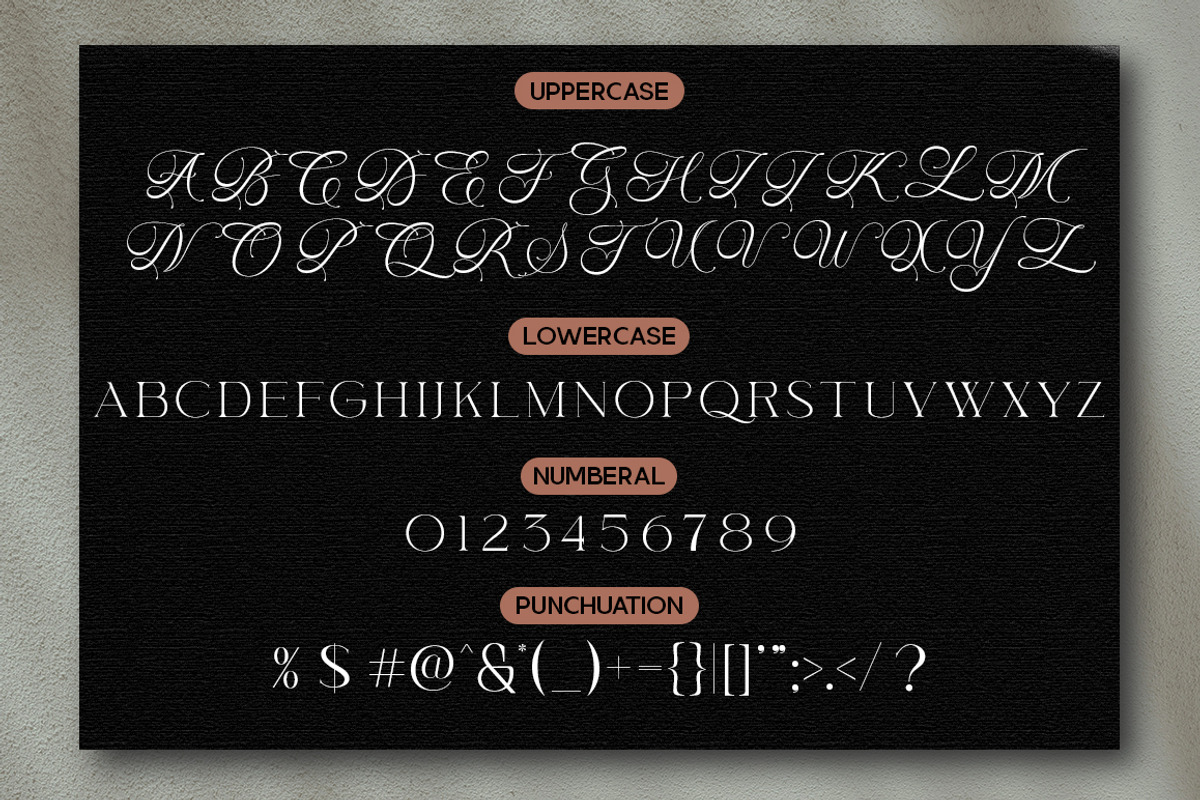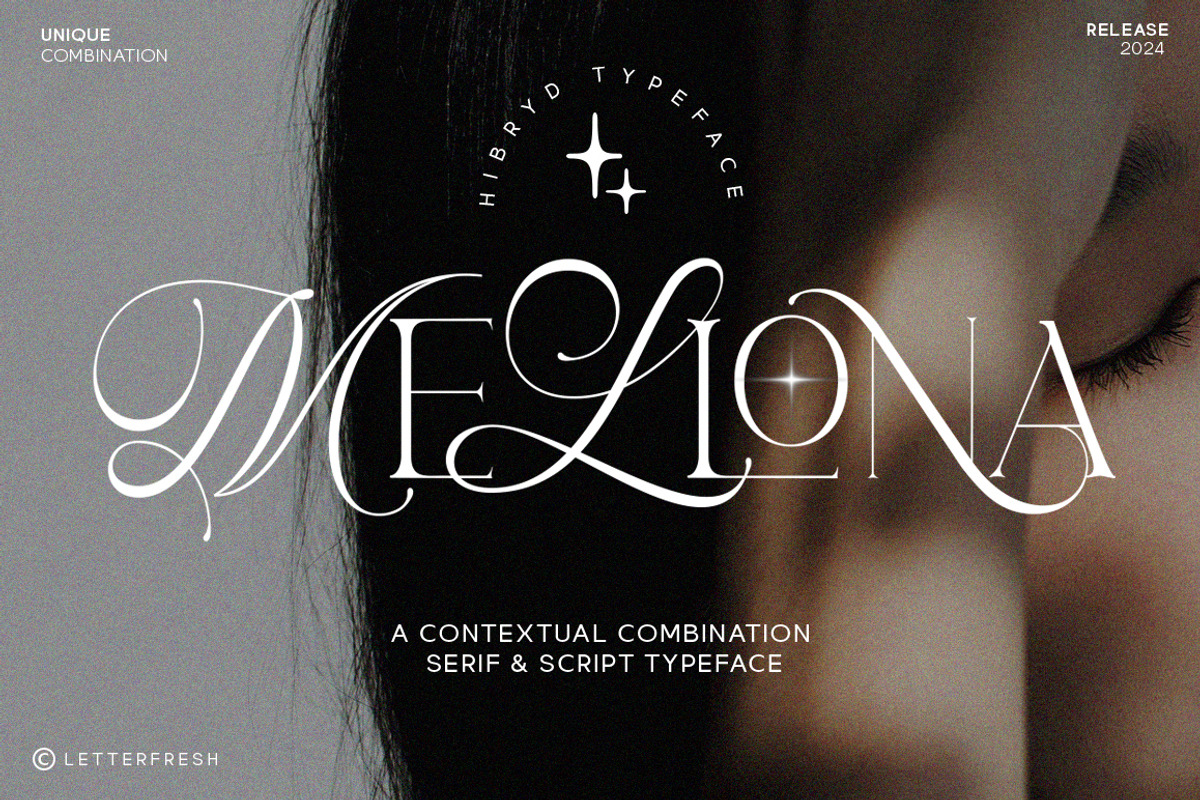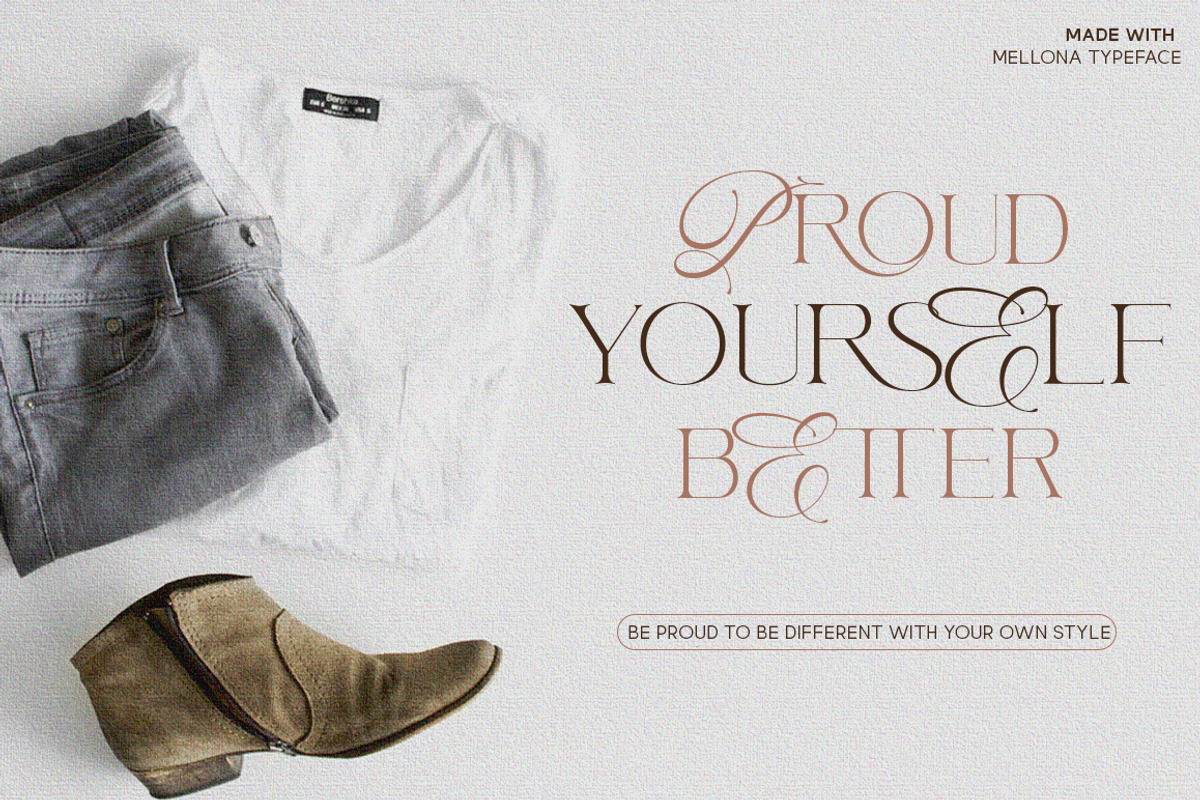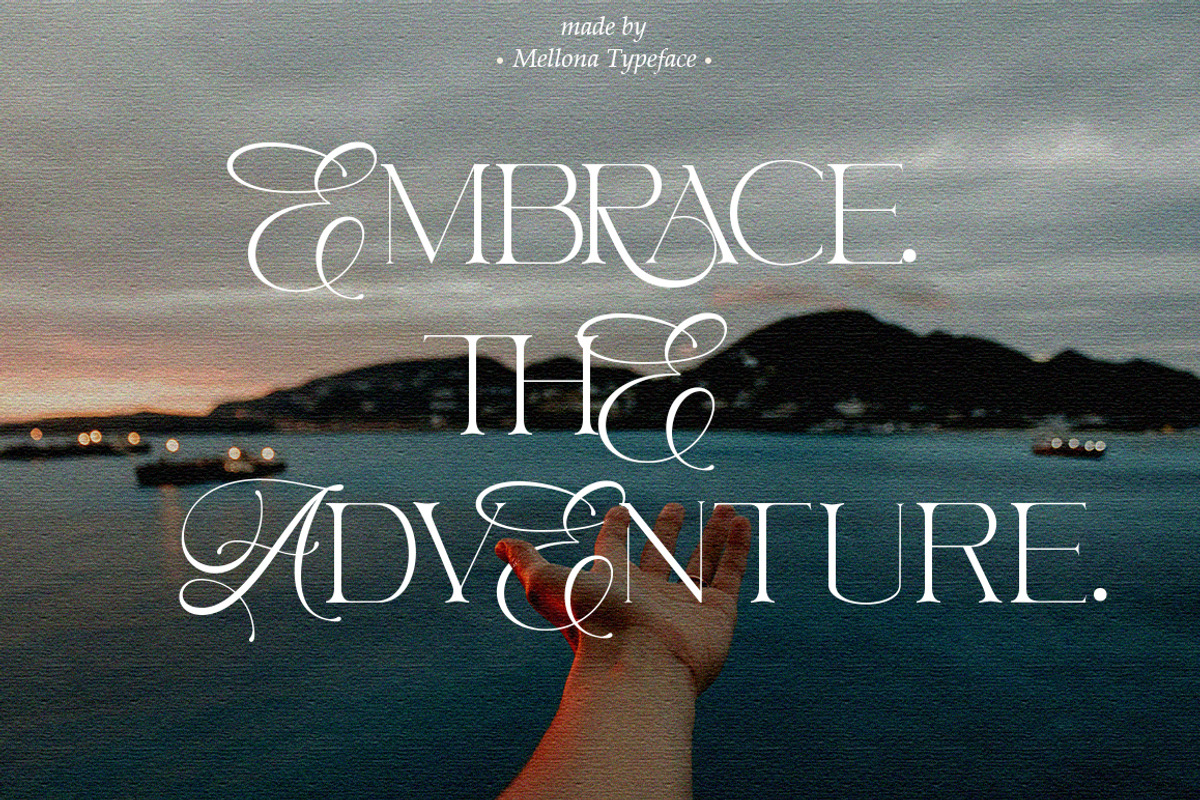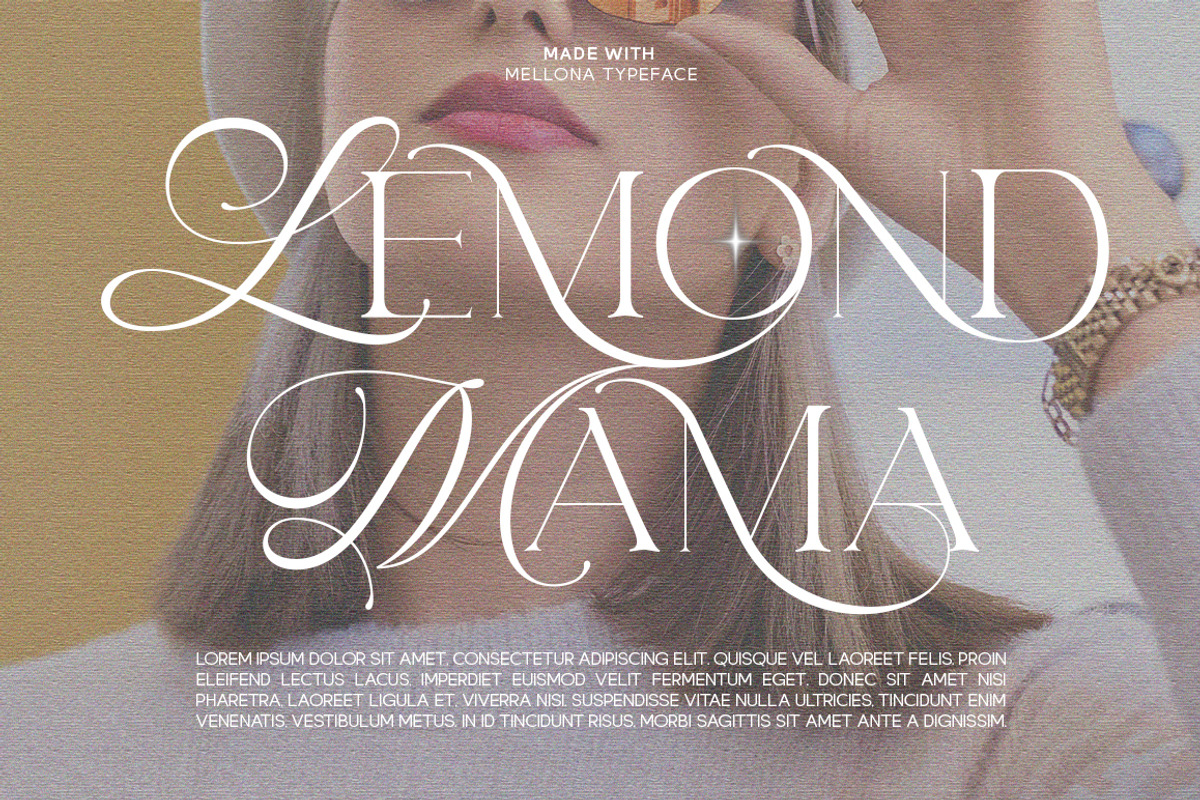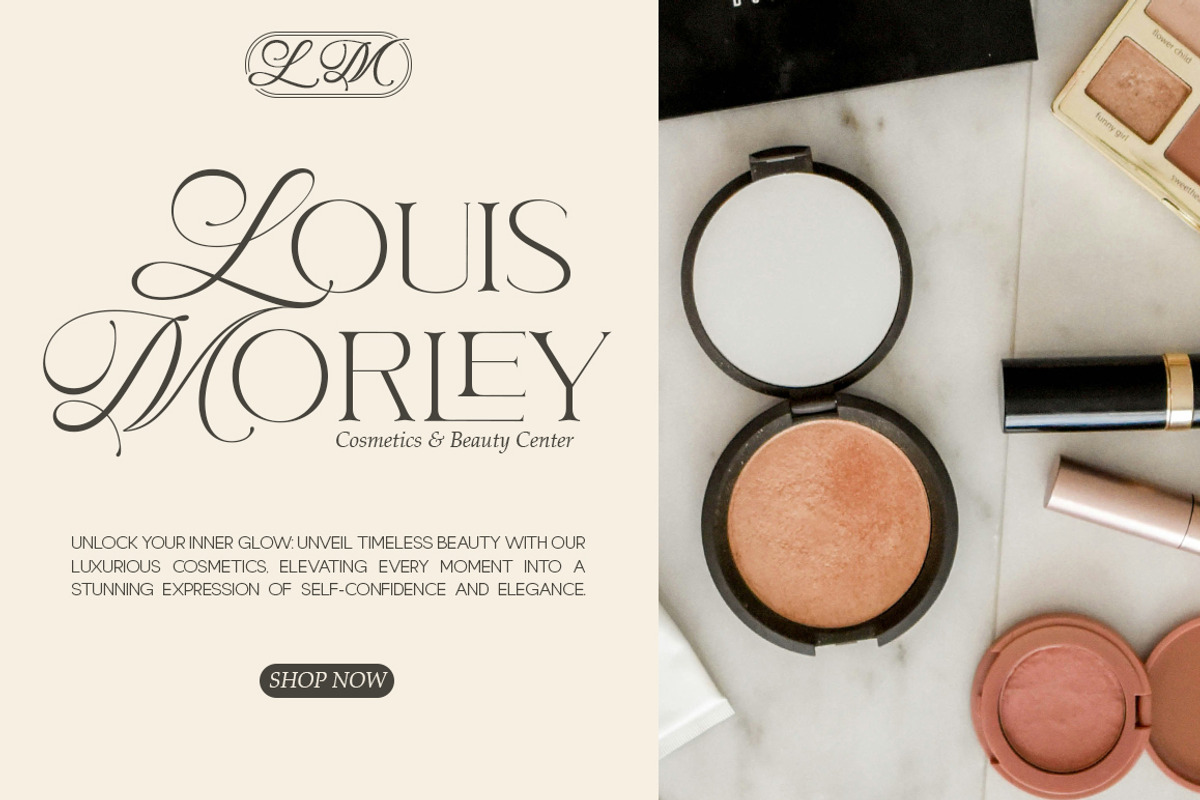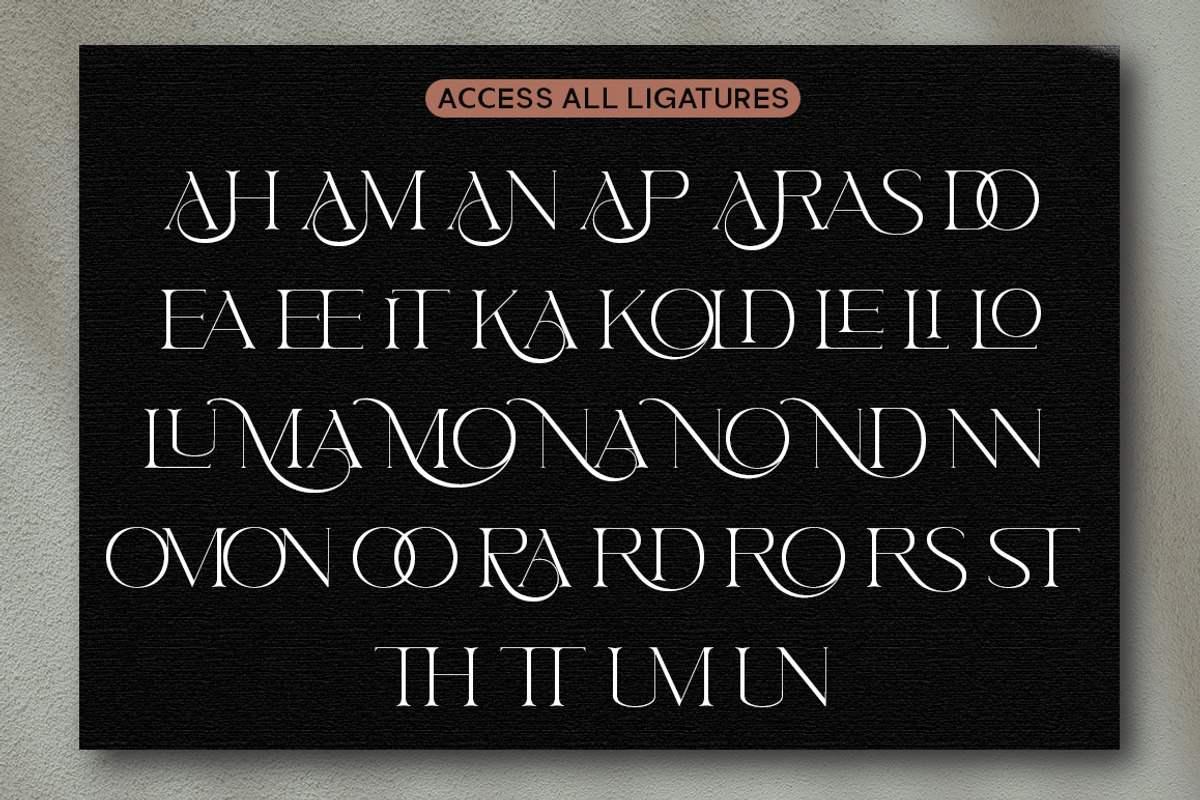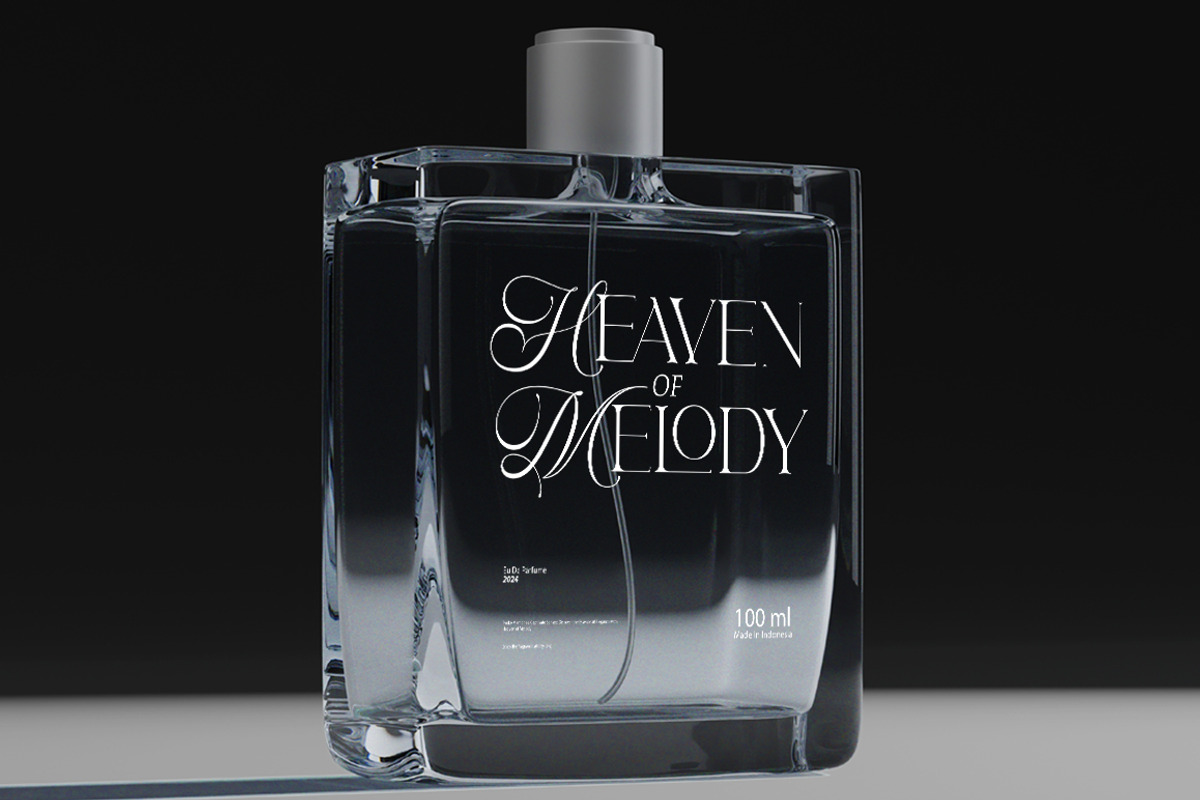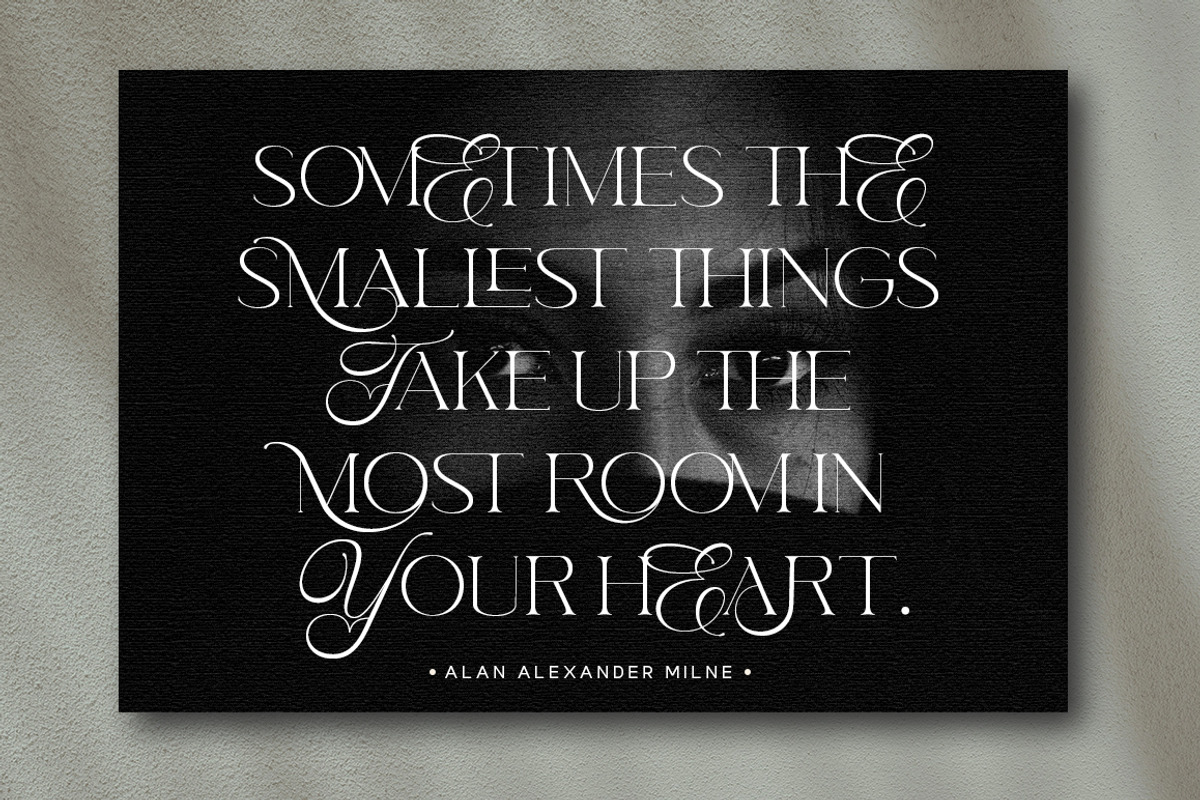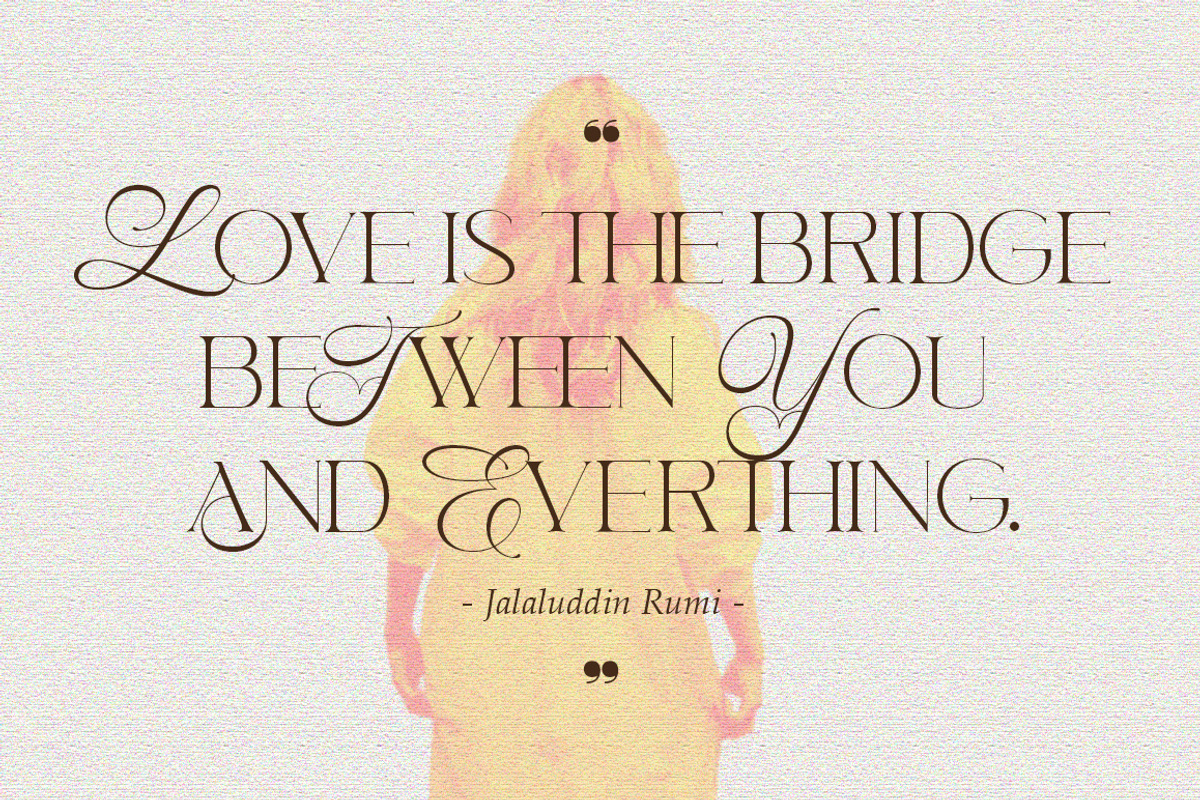
Mellona Typeface
The Mellona typeface is a beautiful and inspiring mix of classic calligraphy and modern serifs with a unique twist.
Mellona was created primarily for headlines, headlines and other short texts and is perfect for advertising, vintage mood boards, branding, logotypes, packaging, titles, editorial designs, modern logos, websites, social media quotes, wedding branding, modern and antique design.